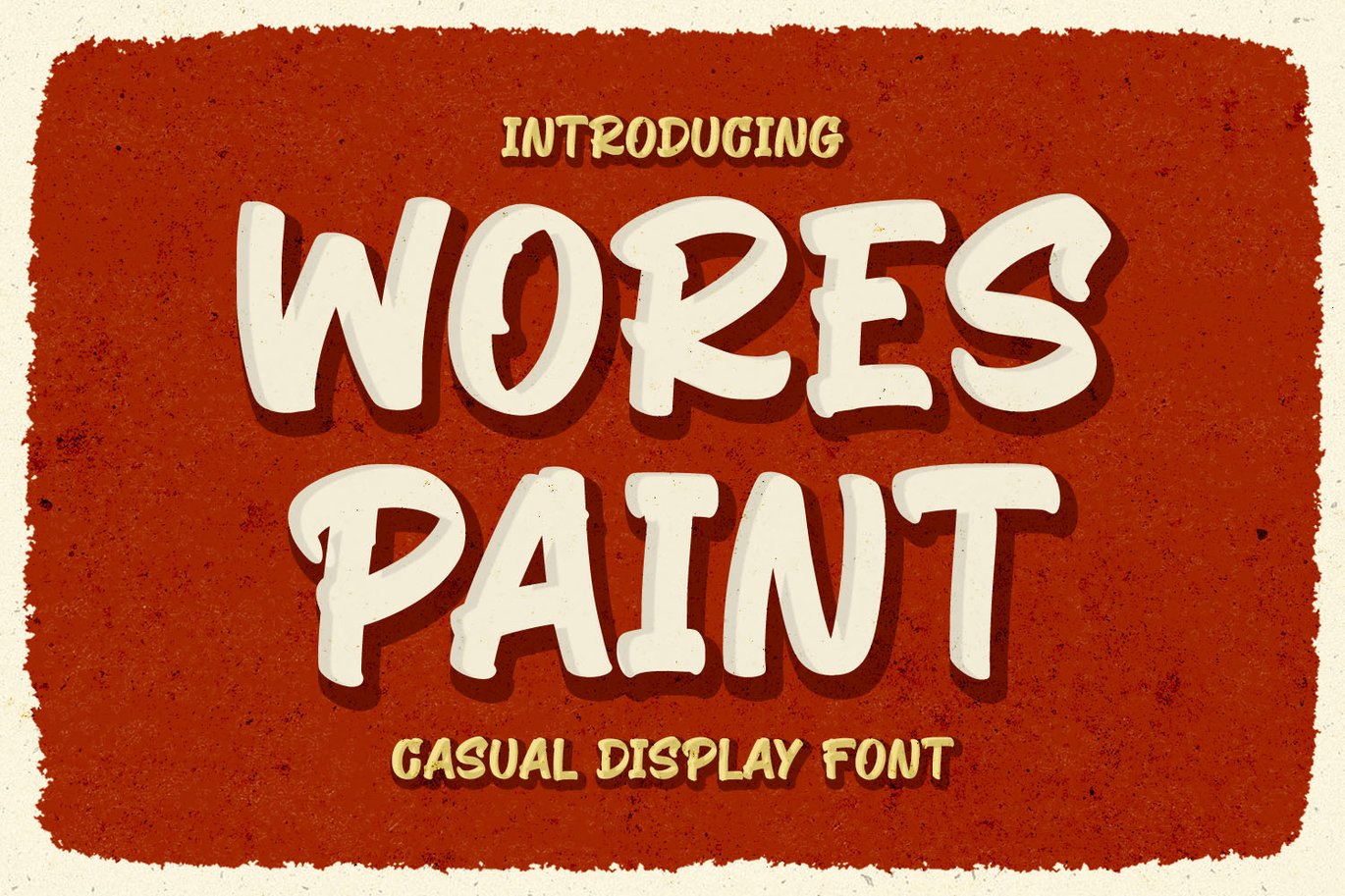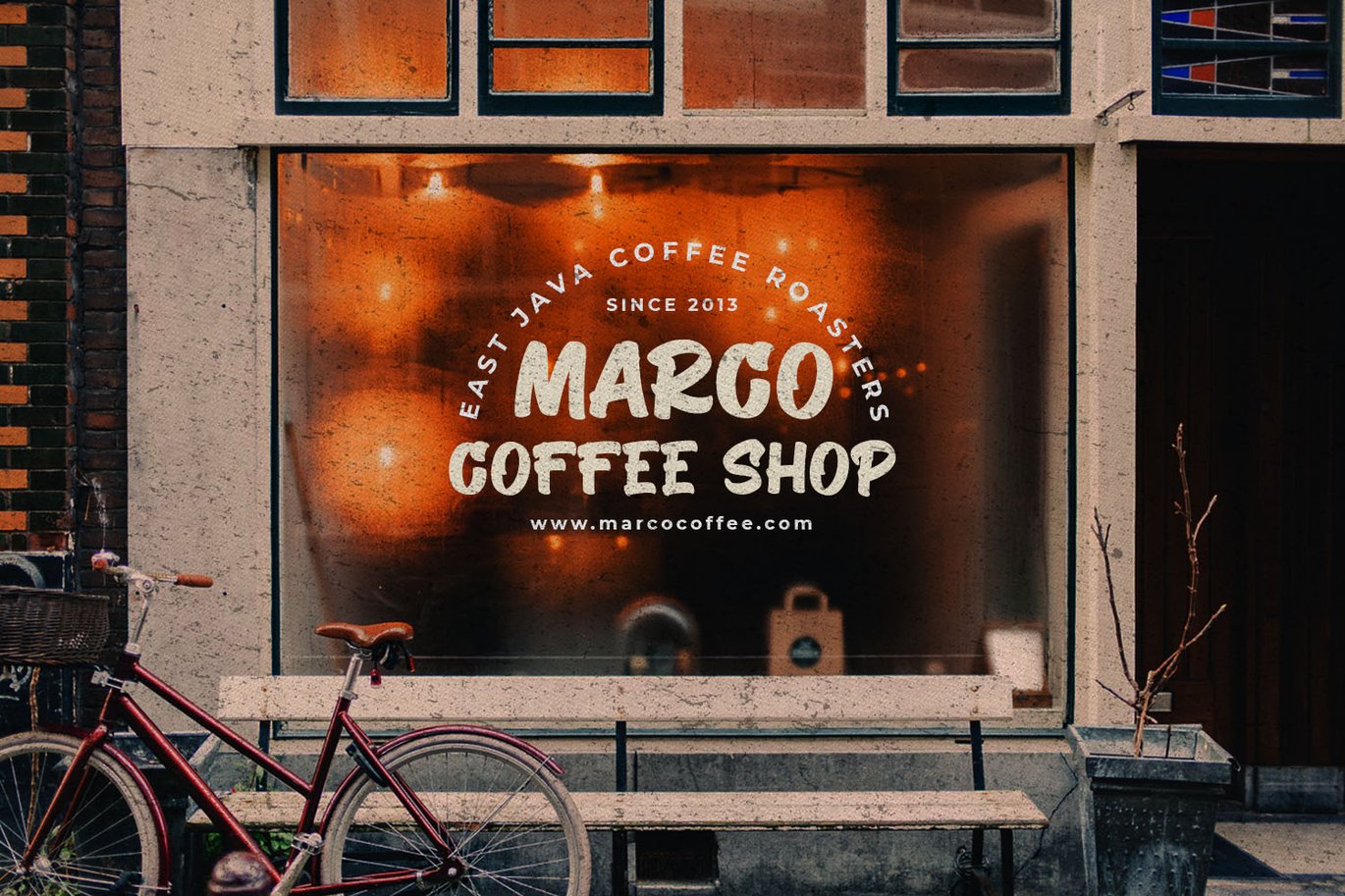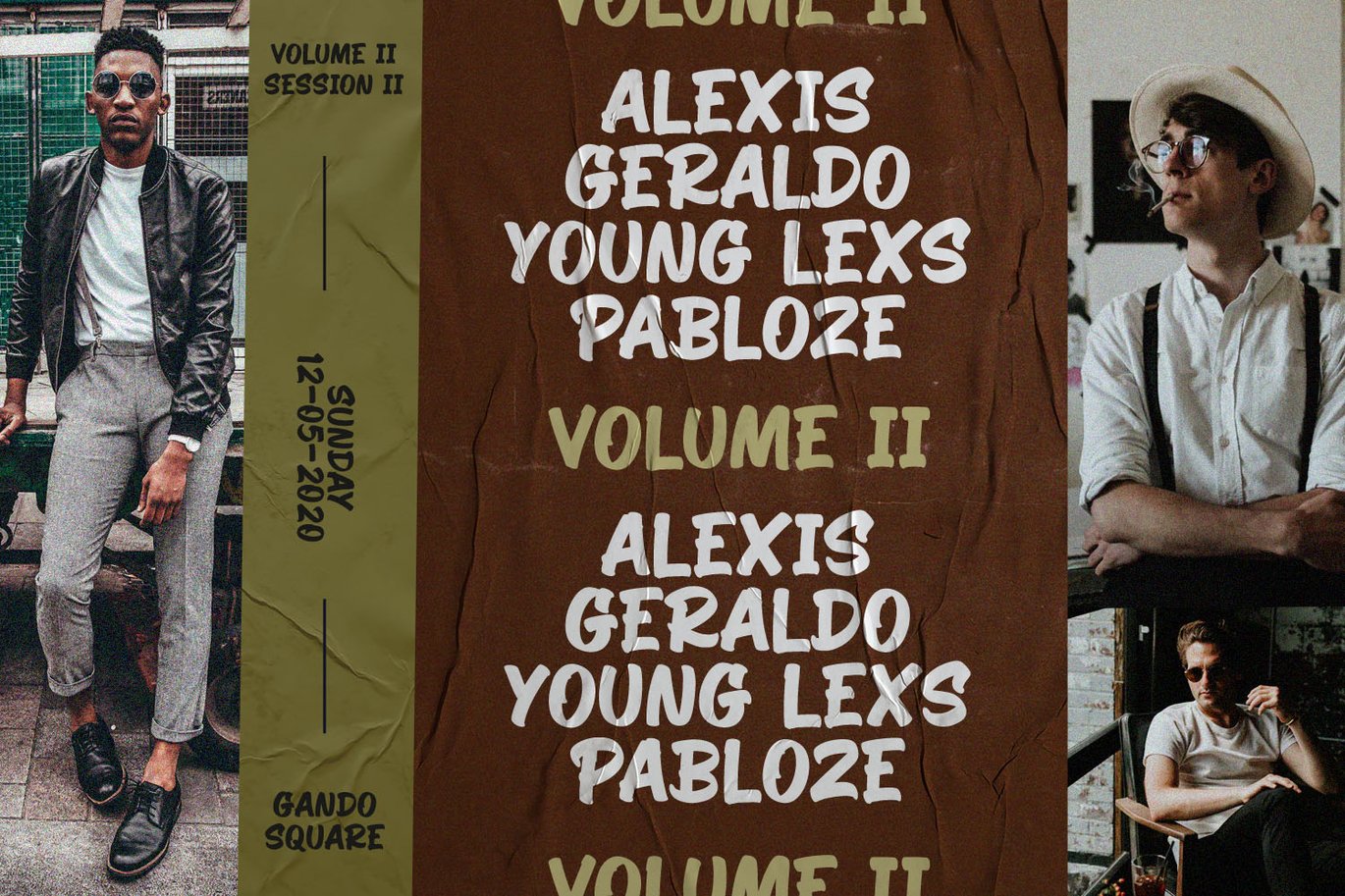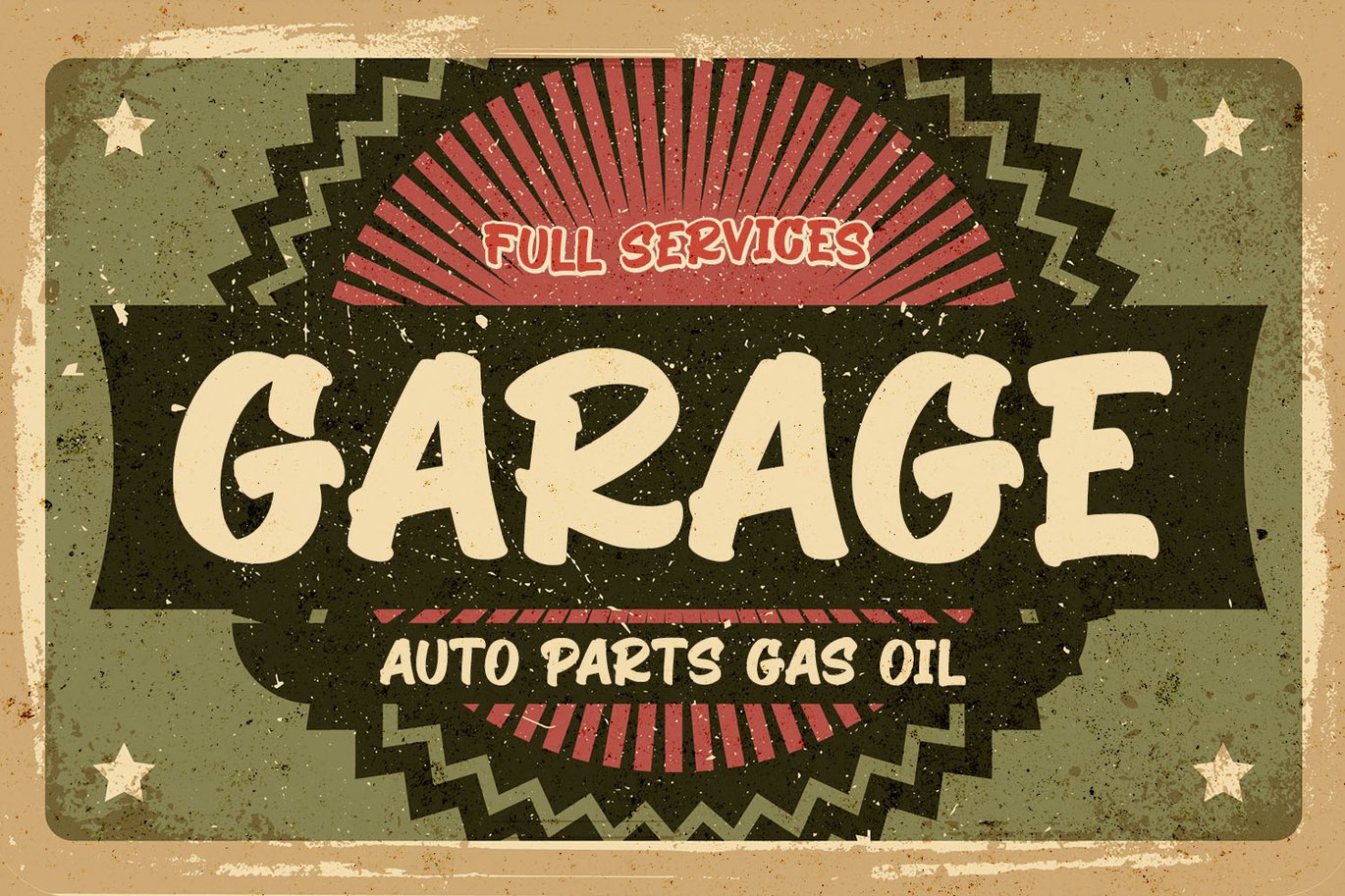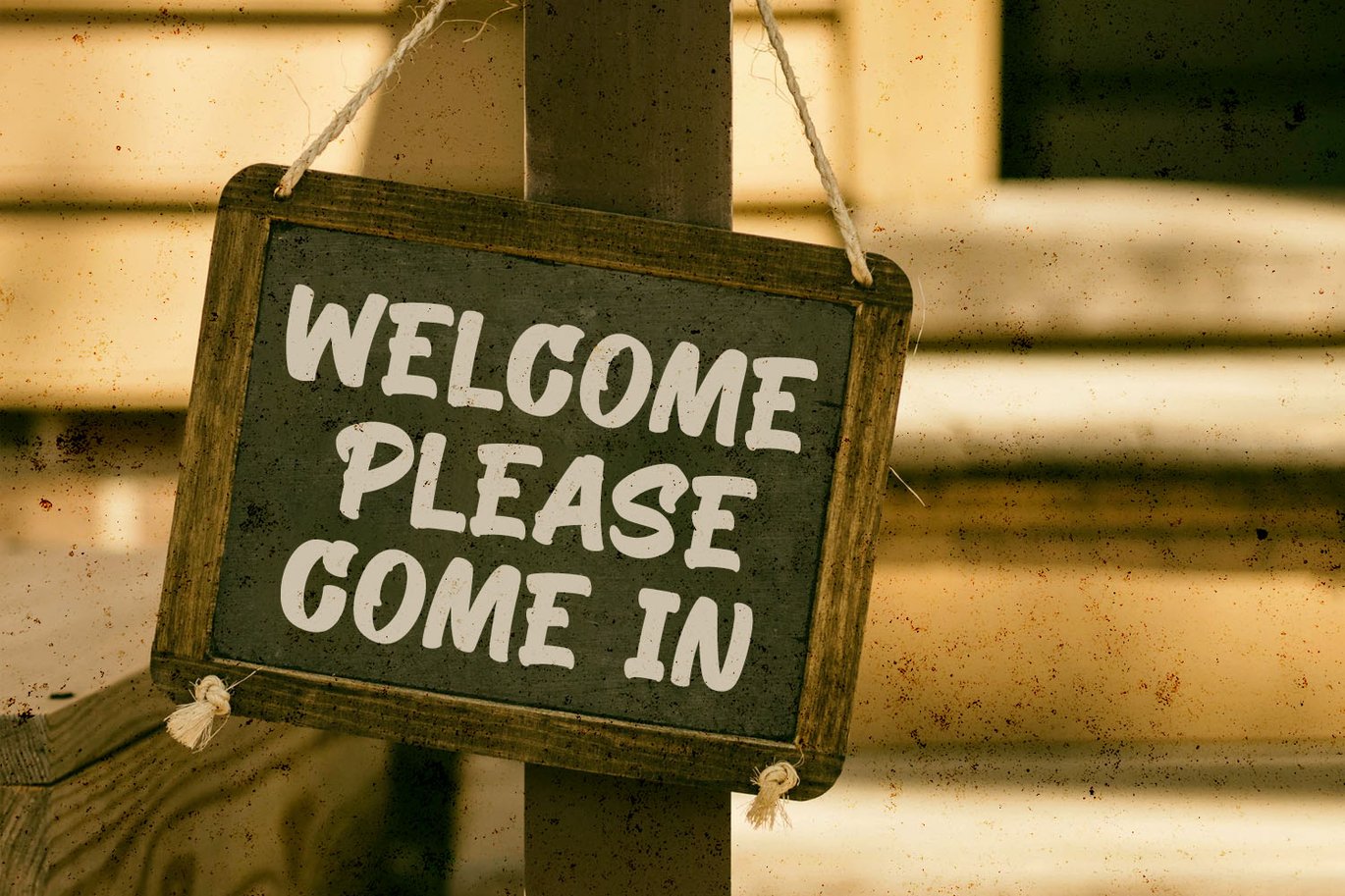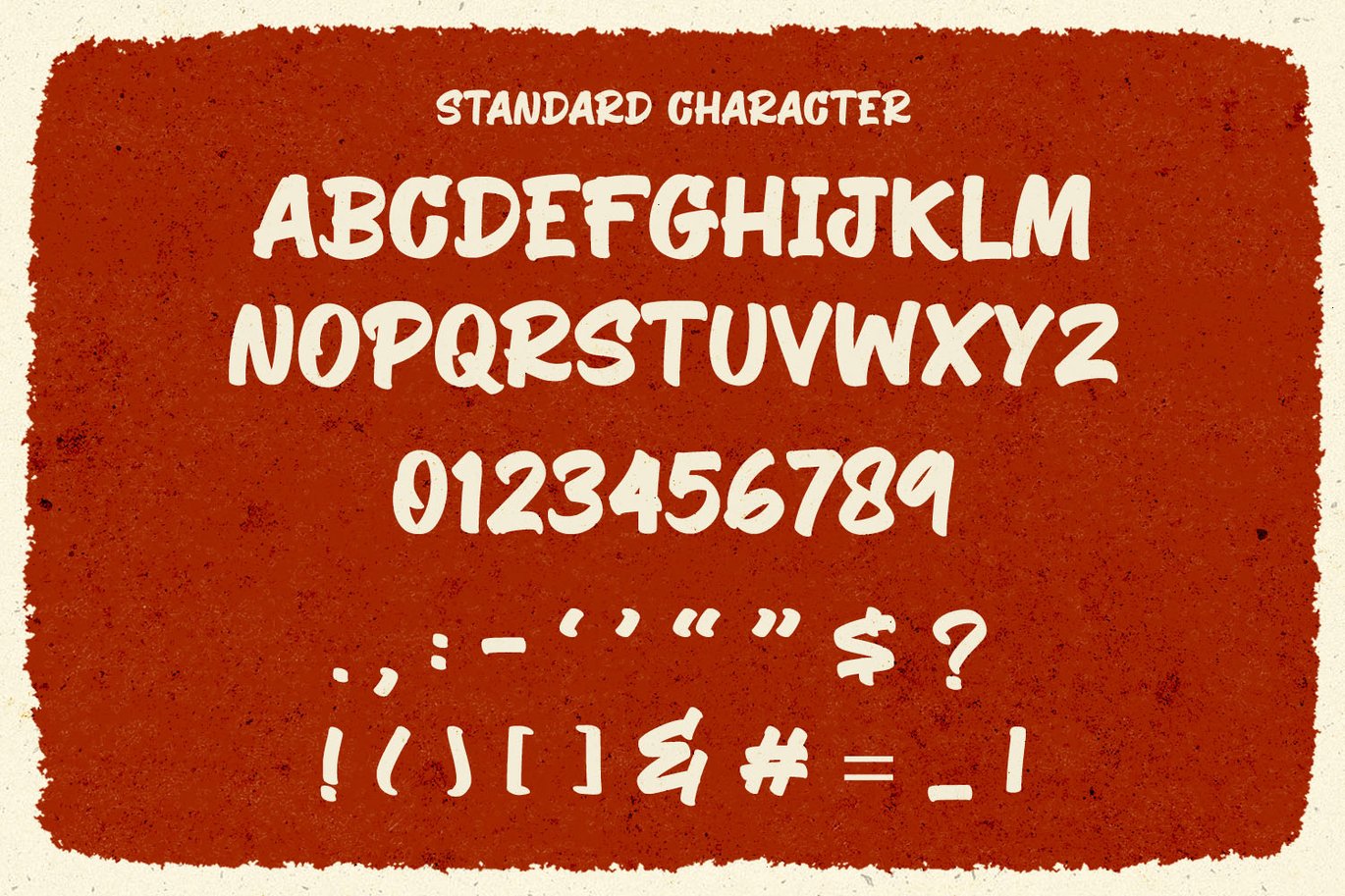
Wores Paint – Casual Display Font
Introducing my new font Wores Paint!!!
A casual display font and combination with Hand Lettering style which gives more personal touch and makes the font looks being customized.
This font is suitable to use as a logotype, product designs, label, watermark, social media posts, apparel, invitation, signboard, sports club, motor/car, special events, or anything that needs handwriting taste.